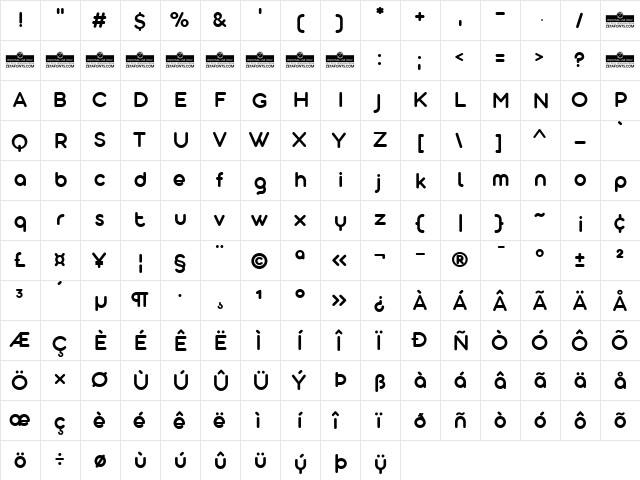
Aristotelica Display Trial DmBd Regular
| Foundry | Zetafonts |
| Designer | Francesco Canovaro |
Design Context for Aristotelica Display Trial DmBd Typeface
Aristotelica Display Trial DmBd is built around its visual character rather than neutral utility — its distinctive forms are designed to make an impression at display sizes.
Font Pairing: Pair with a clean neutral sans-serif for body copy to let Aristotelica Display Trial DmBd's character lead without overwhelming the composition.
Pro Tip: Use Aristotelica Display Trial DmBd exclusively at display sizes — it was designed to be seen, not read at length. Let a neutral companion handle body copy.